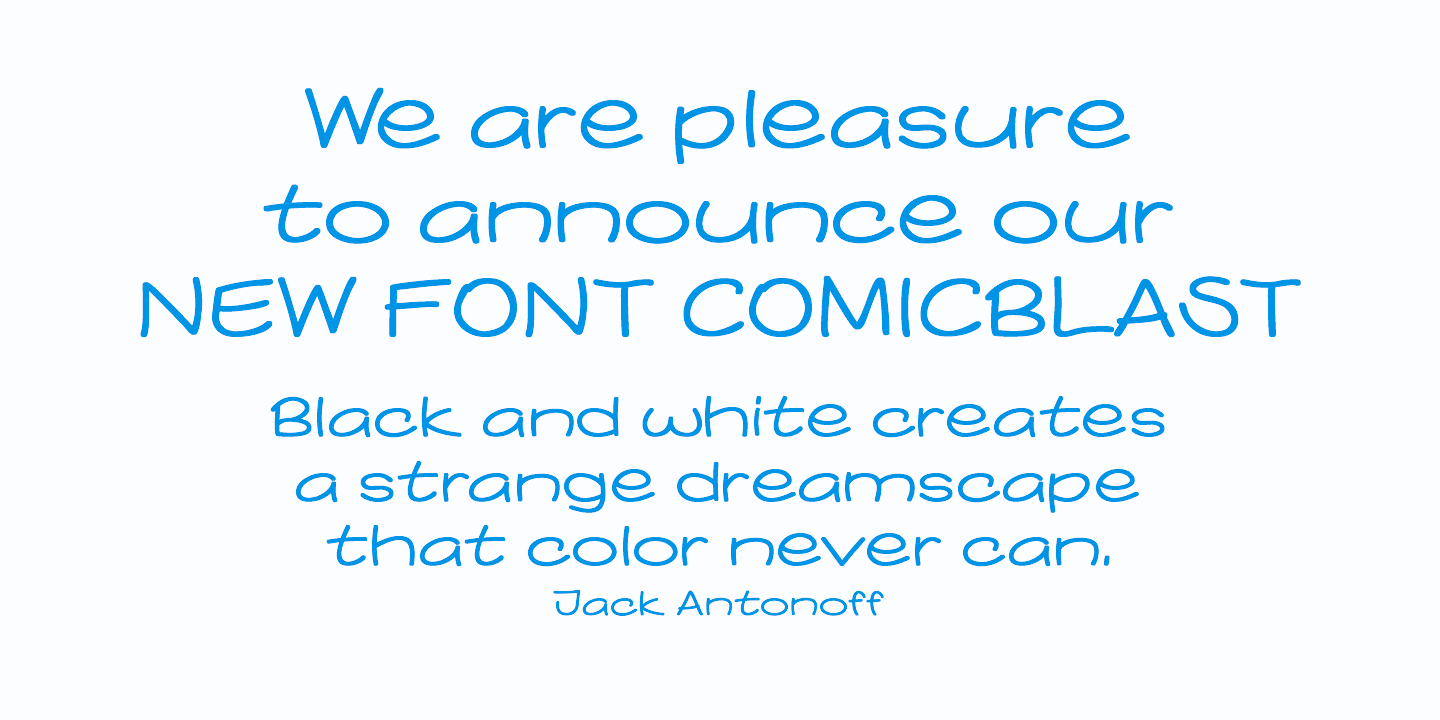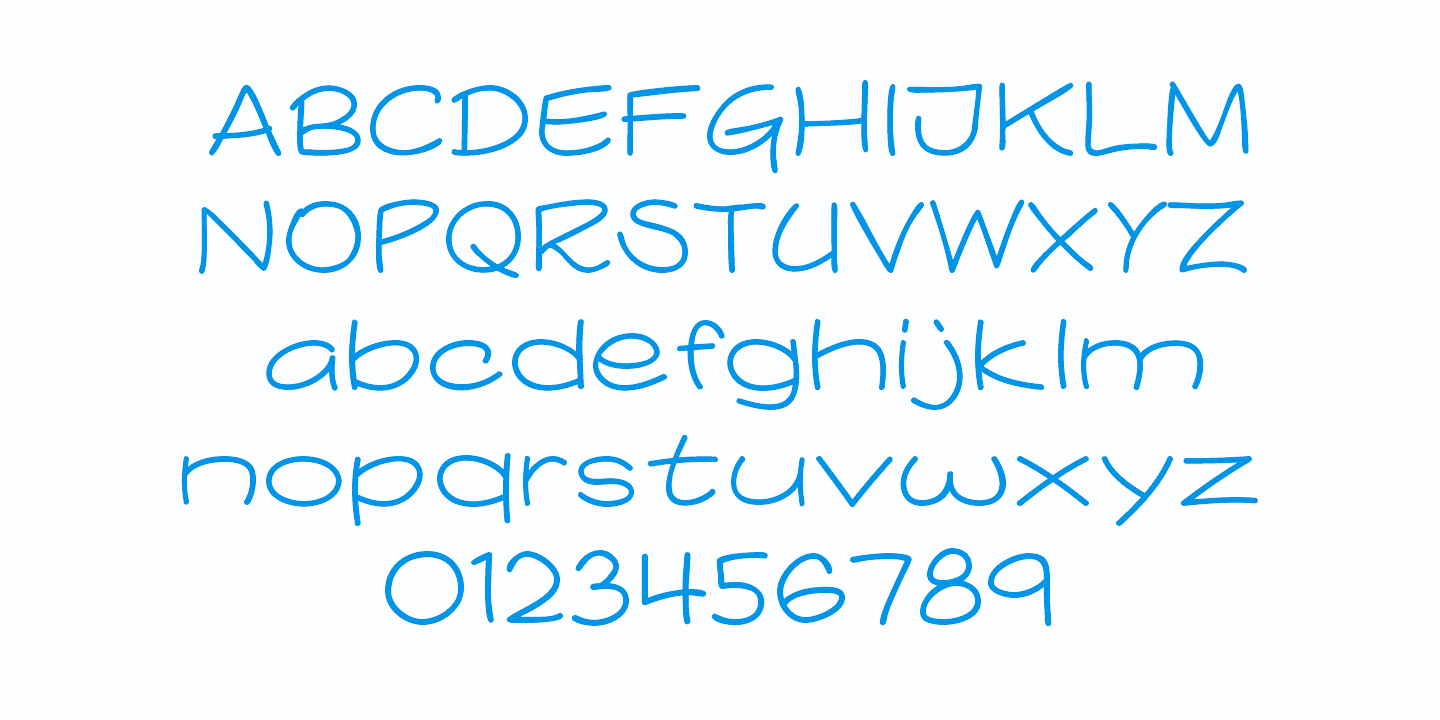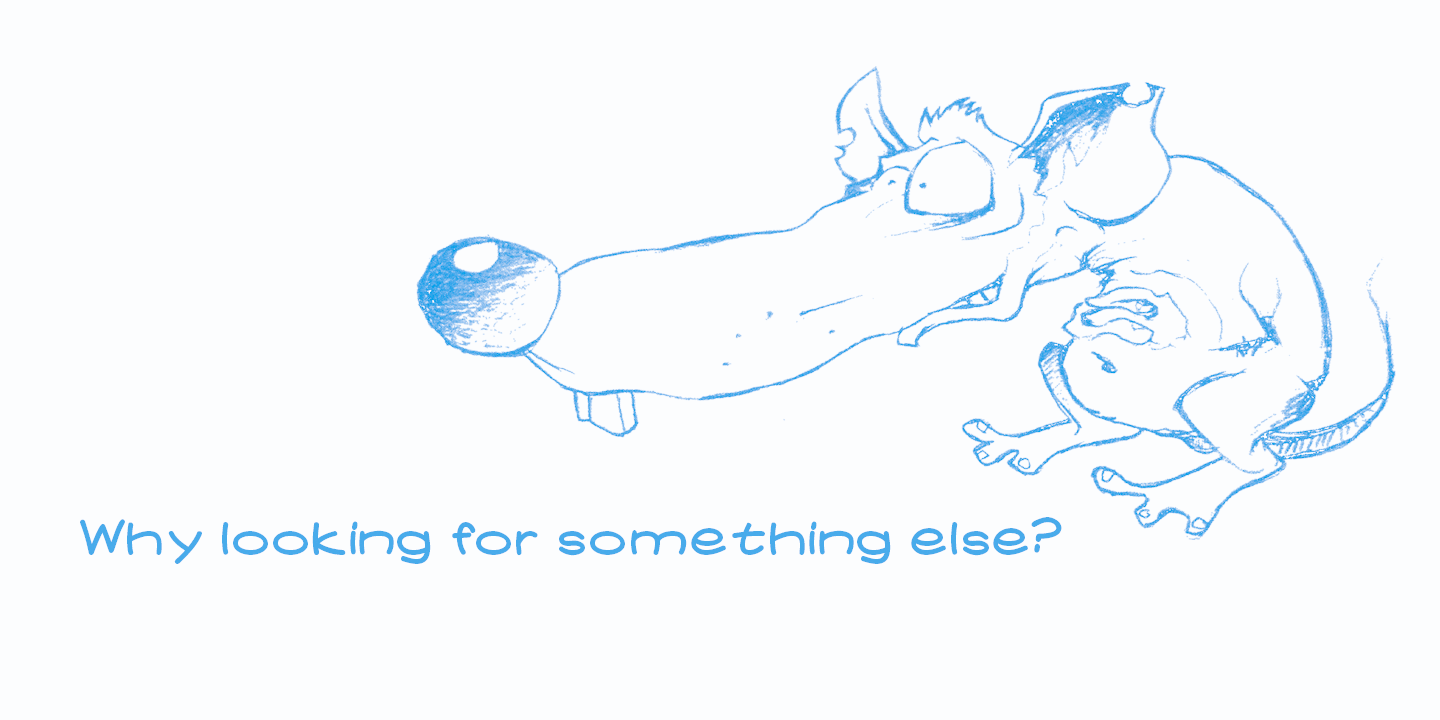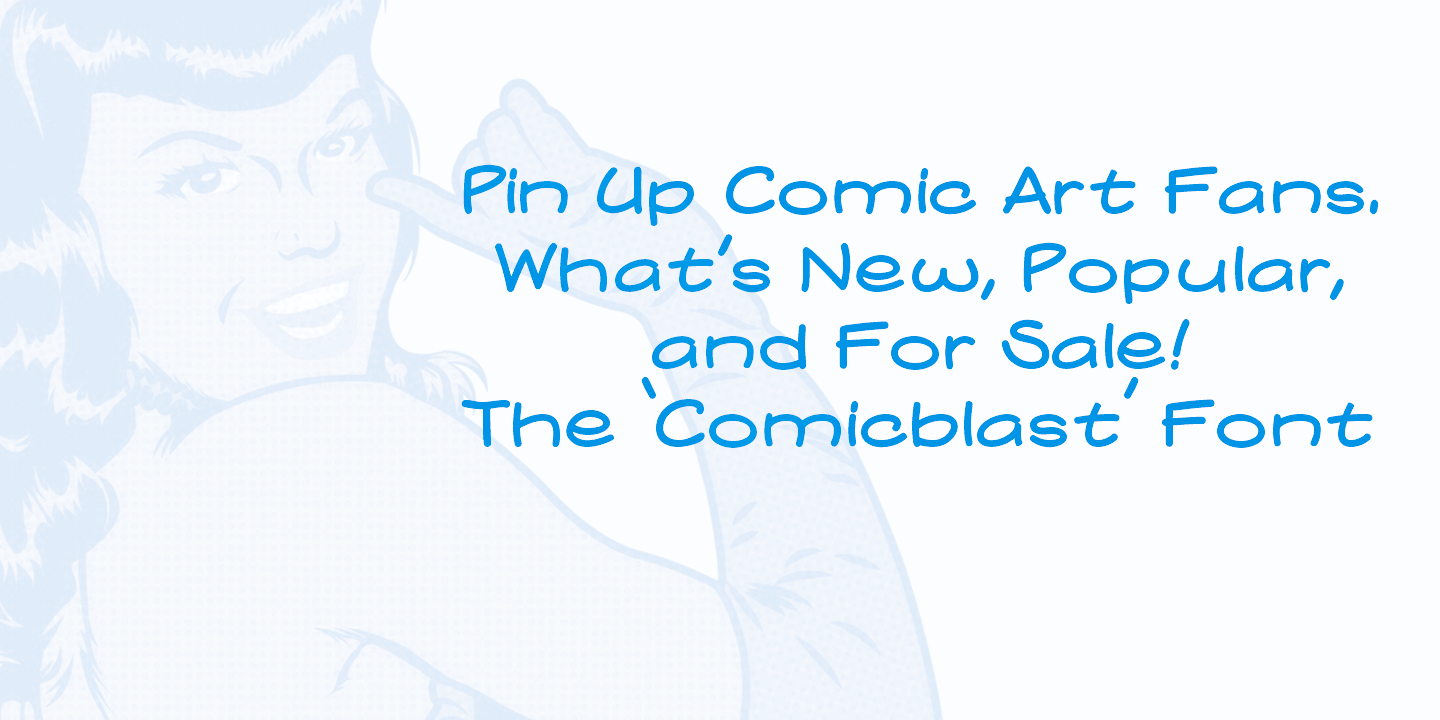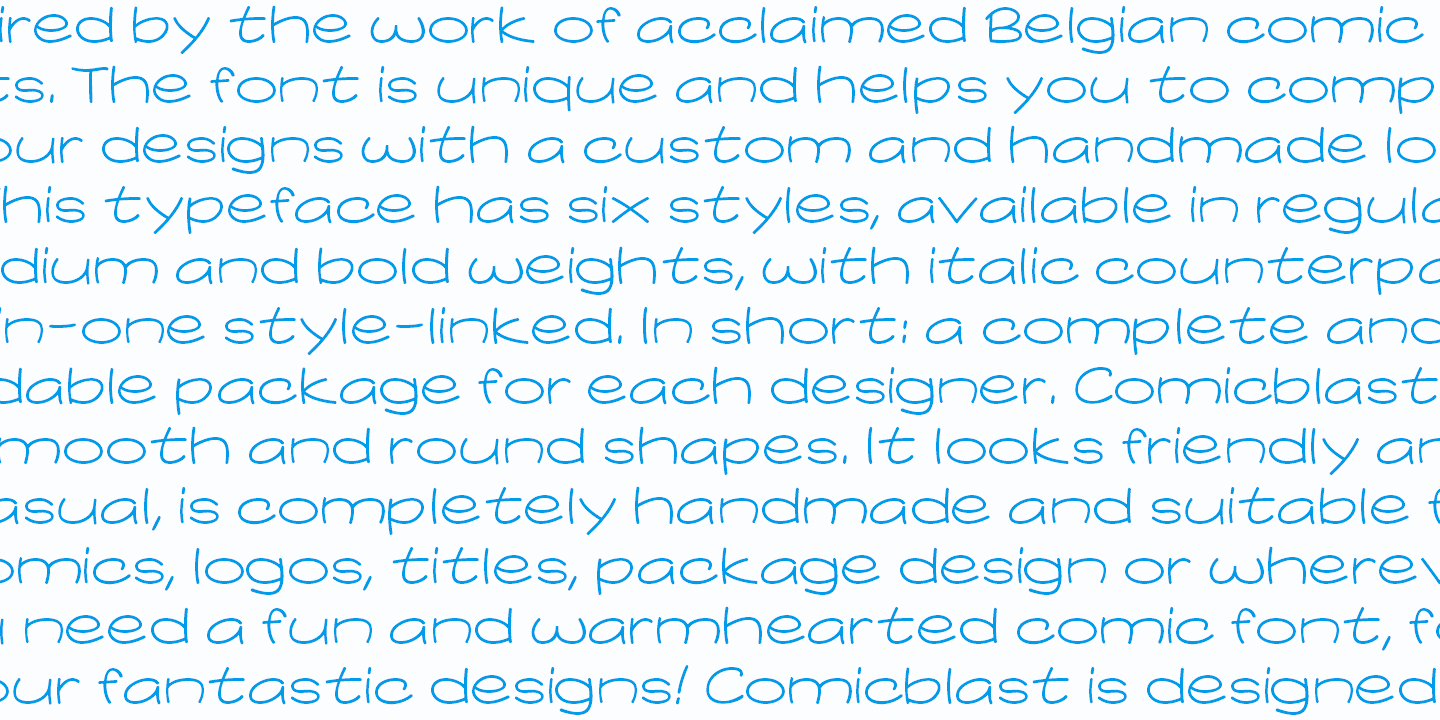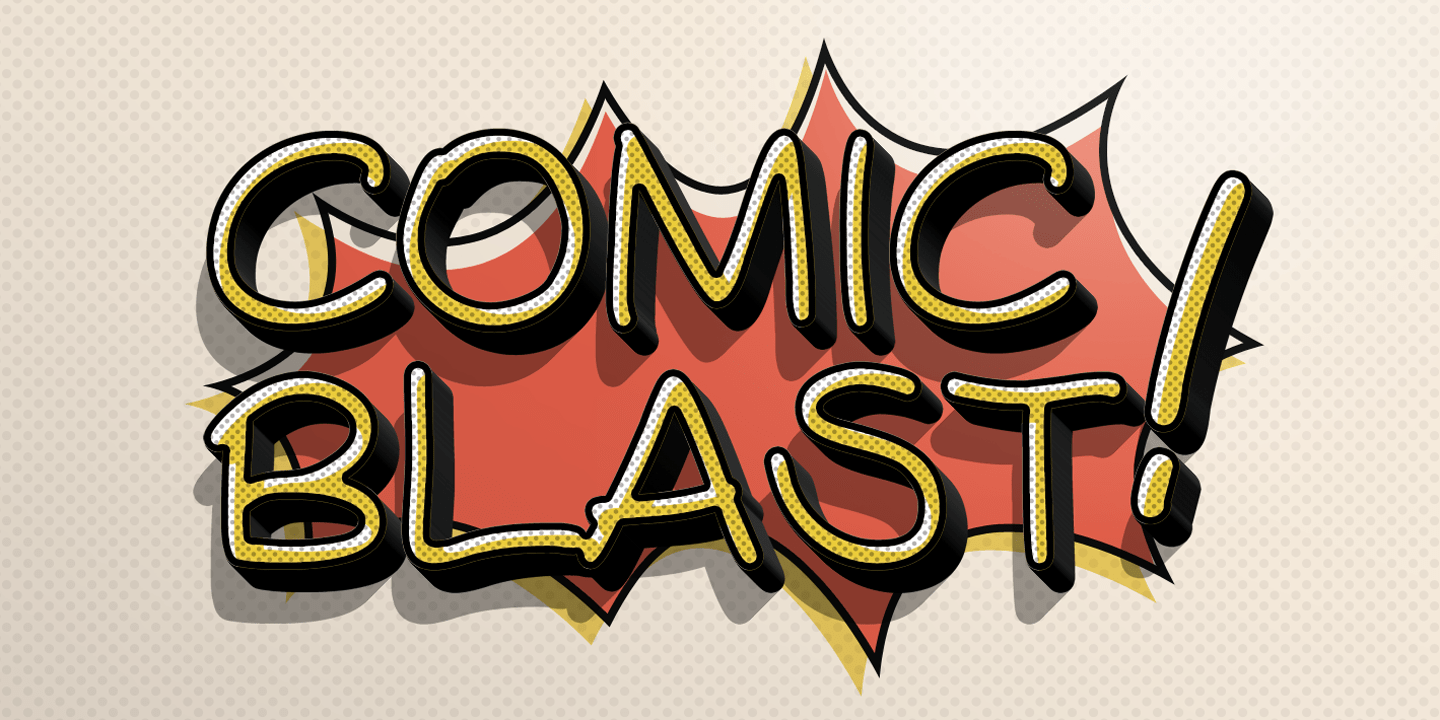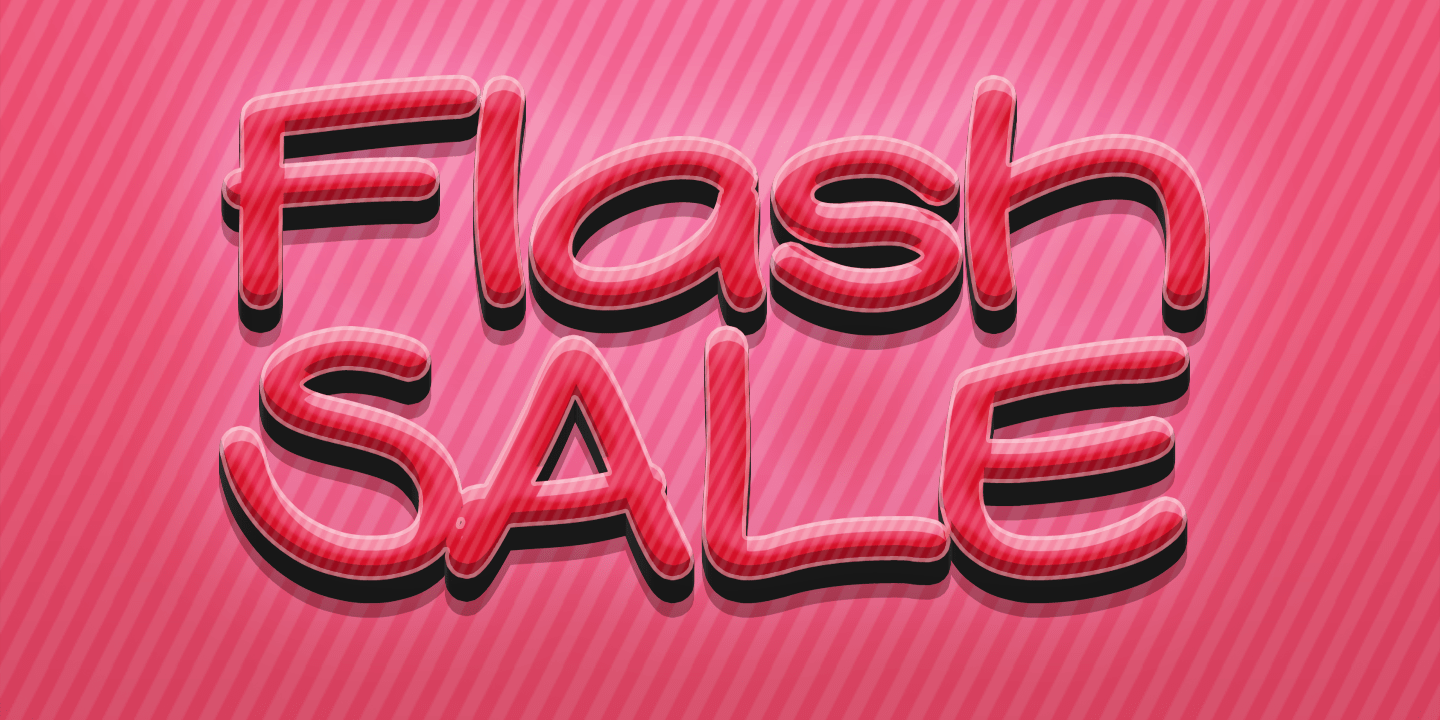
Comicblast
Font Family by Kustomtype
Comicblast is a comic and hand-drawn font family with a universal and timeless design. The font is inspired by the work of acclaimed Belgian comic artists. The font is unique and helps you to complete your designs with a custom and handmade look. This typeface has six styles, available in regular, medium and bold weights, with italic counterparts, all-in-one style-linked. In short: a complete and affordable package for each designer. Comicblast has smooth and round shapes. It looks friendly and casual, is completely handmade and suitable for comics, logos, titles, package design or wherever you need a fun and warmhearted comic font, for all your fantastic designs! Comicblast is designed by Kustomtype.